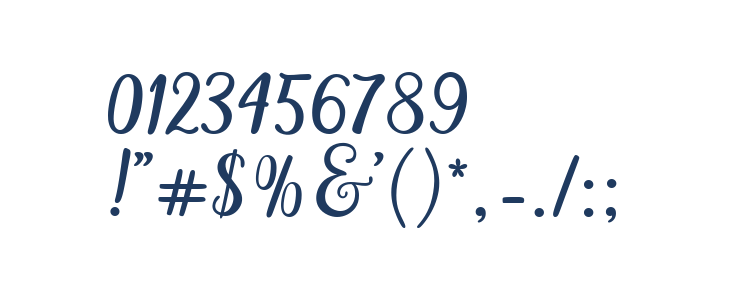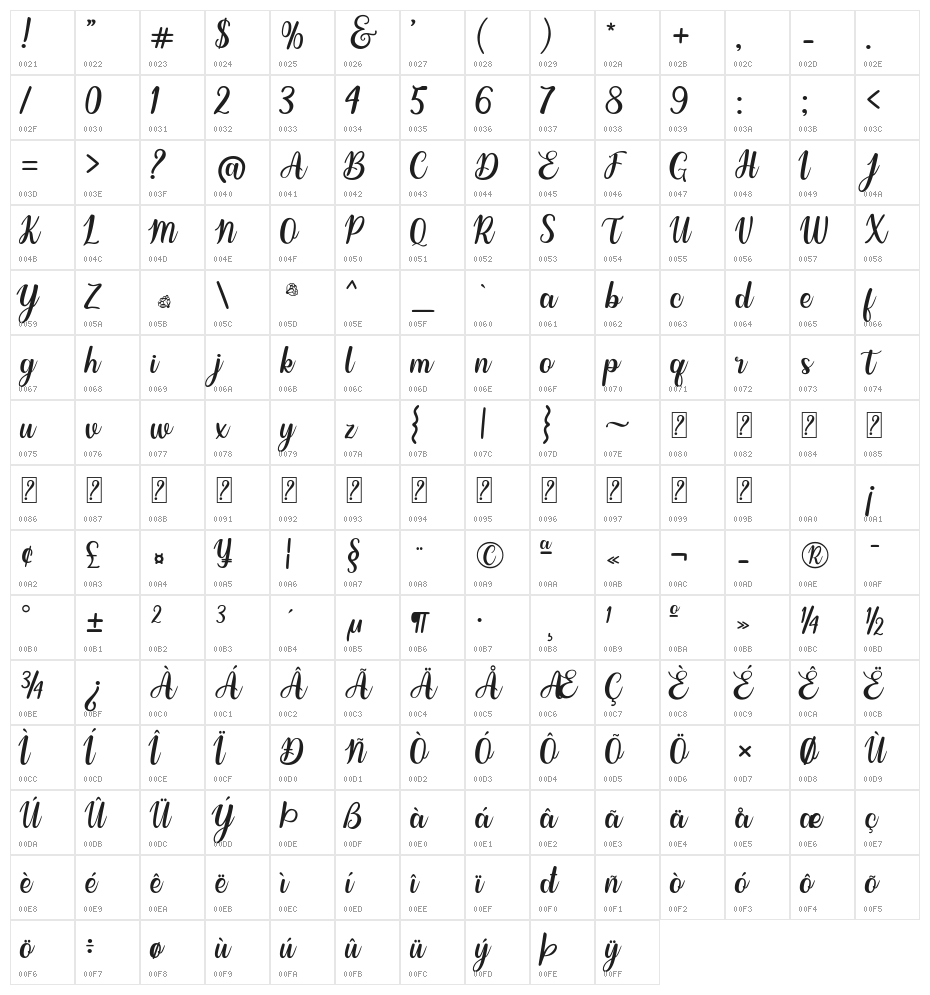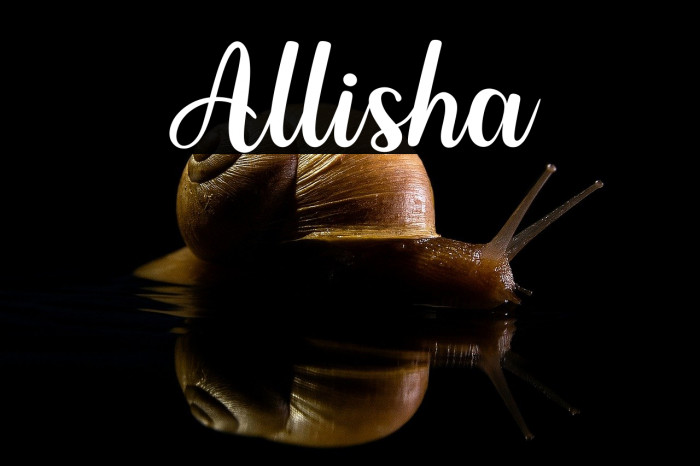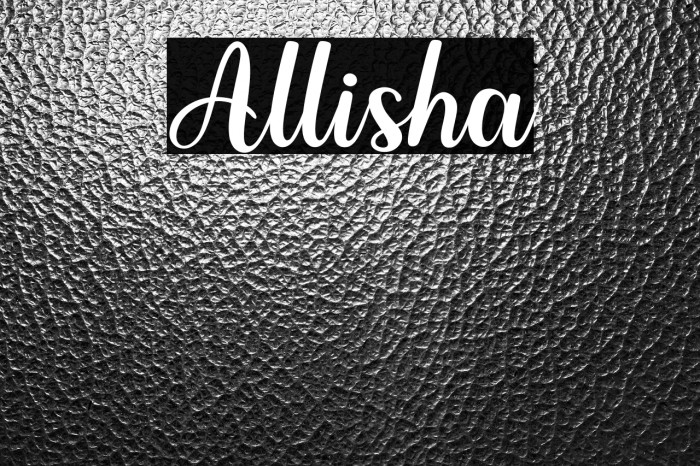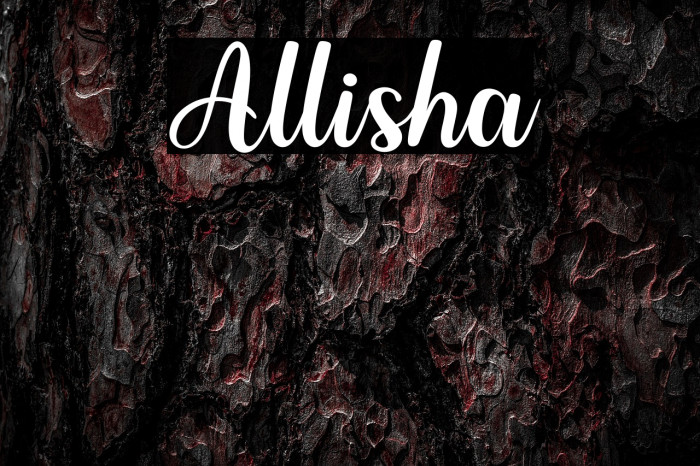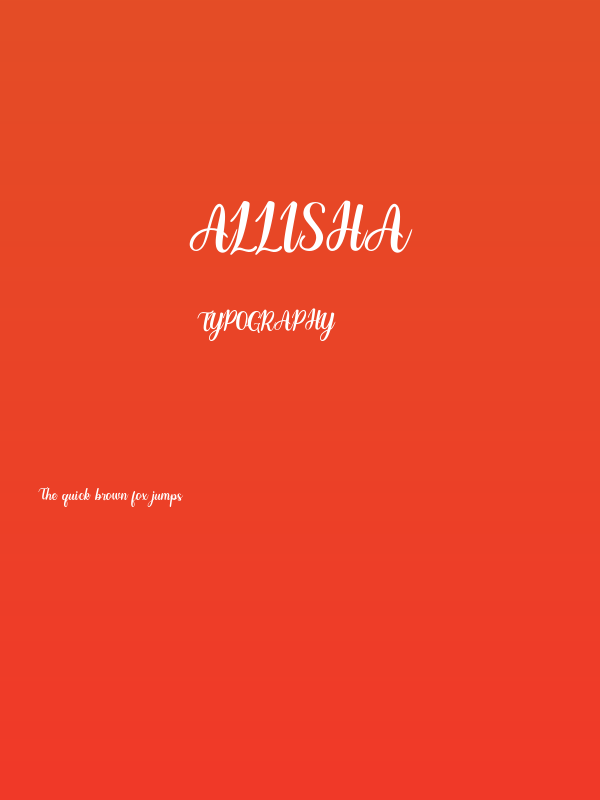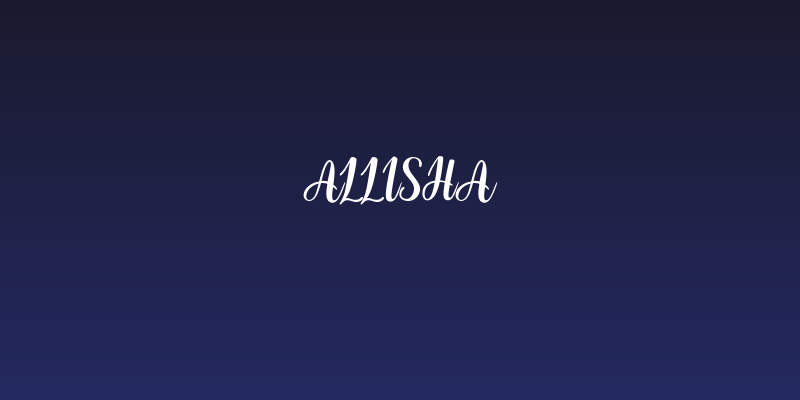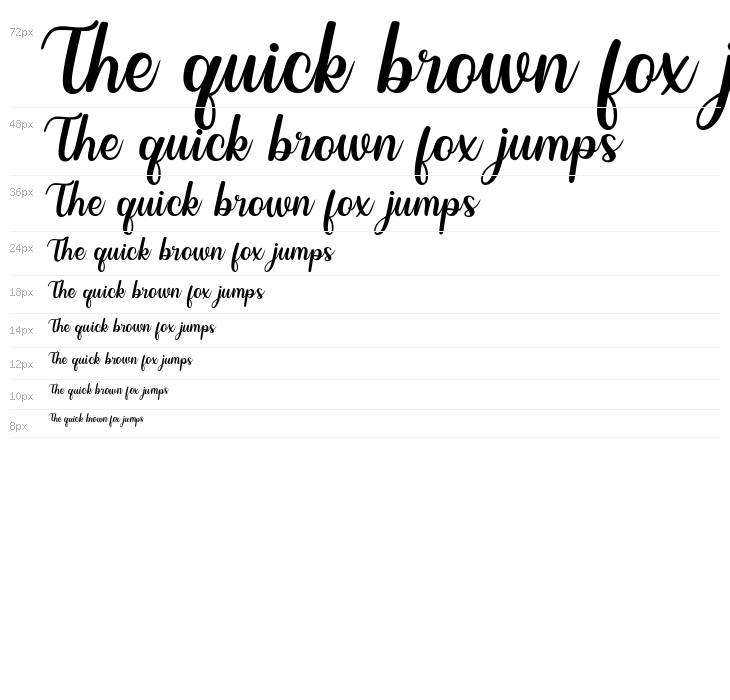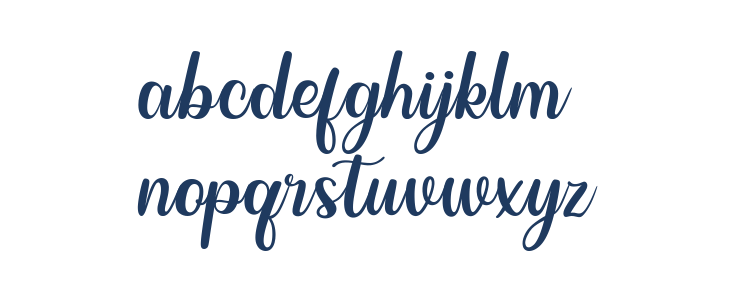
Allisha Font
Allisha Description
This font features a flowing, cursive style with elegant, sweeping strokes that give it a sophisticated and artistic appearance. The uppercase letters are bold and prominent, while the lowercase letters maintain a consistent, graceful flow. The numerals are clear and well-defined, matching the overall aesthetic of the script. Special characters are seamlessly integrated, maintaining the font's cohesive look. The font's design is both decorative and functional, making it suitable for a variety of creative applications.